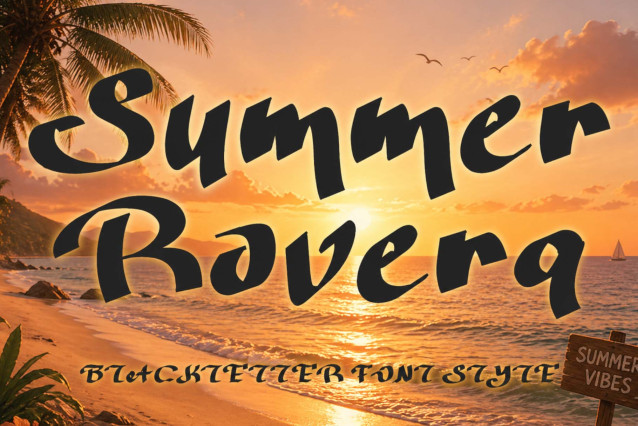
Summer Rovera Font
“Summer Rovera” is an elegant and modern brush font. It features uppercase and lowercase letters, numbers, punctuation, and multilingual support. It’s suitable for Easter, holidays, vacation, back to school, tattoos, social media, spring, summer, Halloween, movie titles, comic titles, stickers, posters, banners, prints, branding, and more.